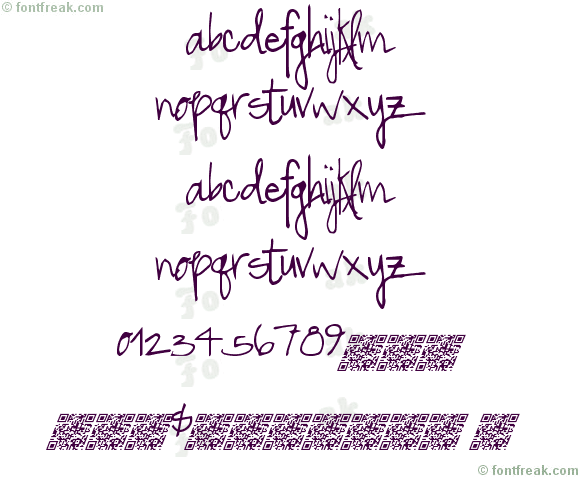
GreatSpringtime
GreatSpringtime — Character Map
About GreatSpringtime
GreatSpringtime by XEROGRAPHER FONTS is a delightful handwritten font that captures the essence of a joyful, carefree spirit. This font features a unique, flowing script style that embodies a charming, casual elegance, making it perfect for a wide range of creative projects. The stroke weight is consistent yet playful, offering a balanced contrast that enhances its legibility while retaining a personal touch. The spacing between the letters is well-considered, allowing for easy reading while maintaining a cohesive visual flow.
This font is ideal for various use cases, including wedding invitations that seek to convey warmth and intimacy, movie posters aiming for a whimsical feel, or restaurant menus that want to add a touch of personality to their branding. Additionally, GreatSpringtime works excellently for social media graphics where a friendly, approachable vibe is desired, and for greeting cards that aim to spread cheer and positivity. Its versatility makes it an essential tool for graphic designers, small business owners, and content creators looking to elevate their visual communications.
What sets the GreatSpringtime font apart is its ability to evoke a sense of nostalgia and joy, reminiscent of handwritten notes and personal touches. It stands out in a crowded font landscape due to its distinctive character and charm, making it a favorite among those who wish to connect emotionally with their audience. For anyone looking to enhance their projects with a unique and expressive typeface, the GreatSpringtime font free download offers an excellent opportunity to bring creativity to life. Whether you’re designing for personal or commercial use, this font is sure to leave a lasting impression.